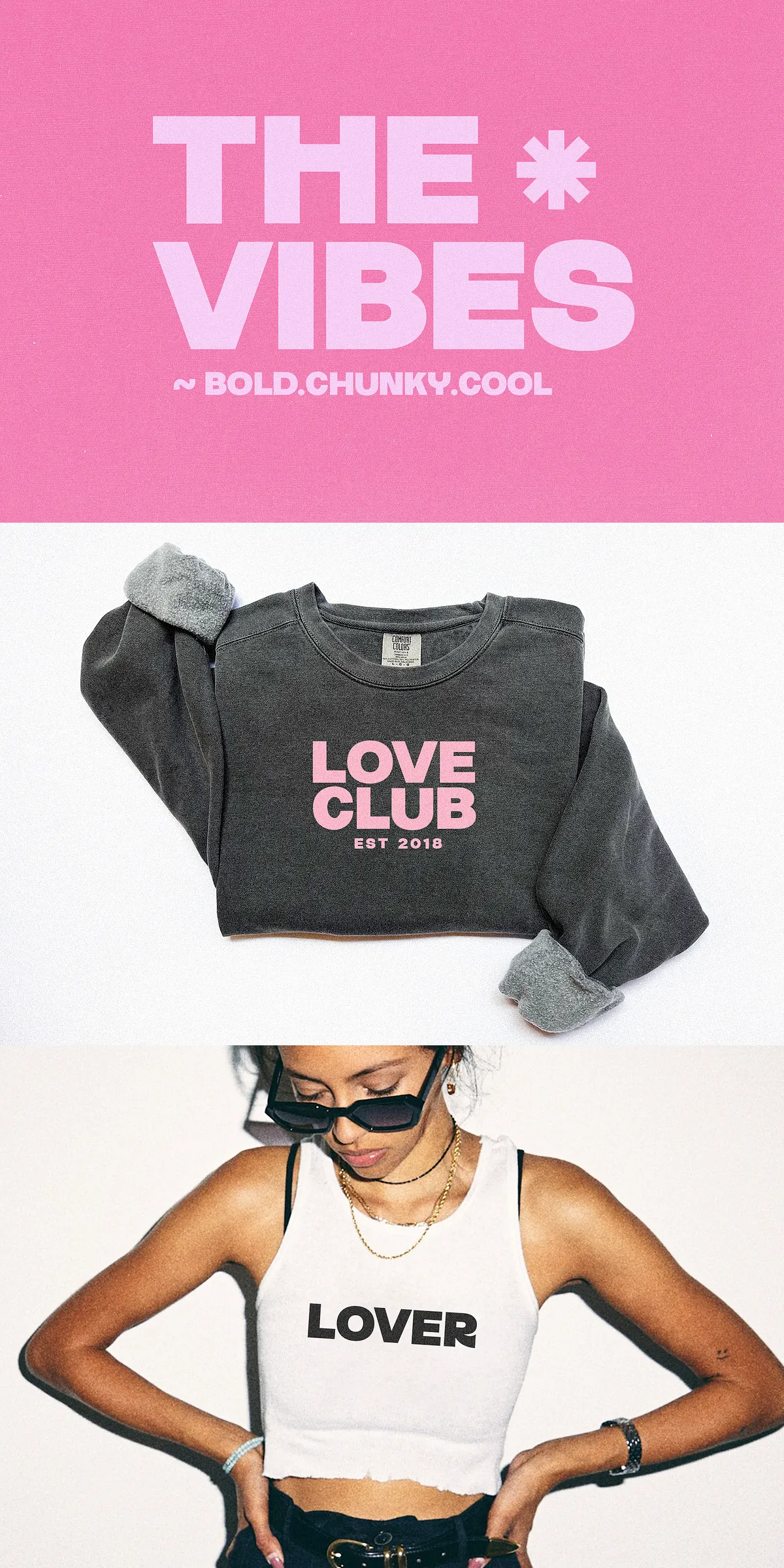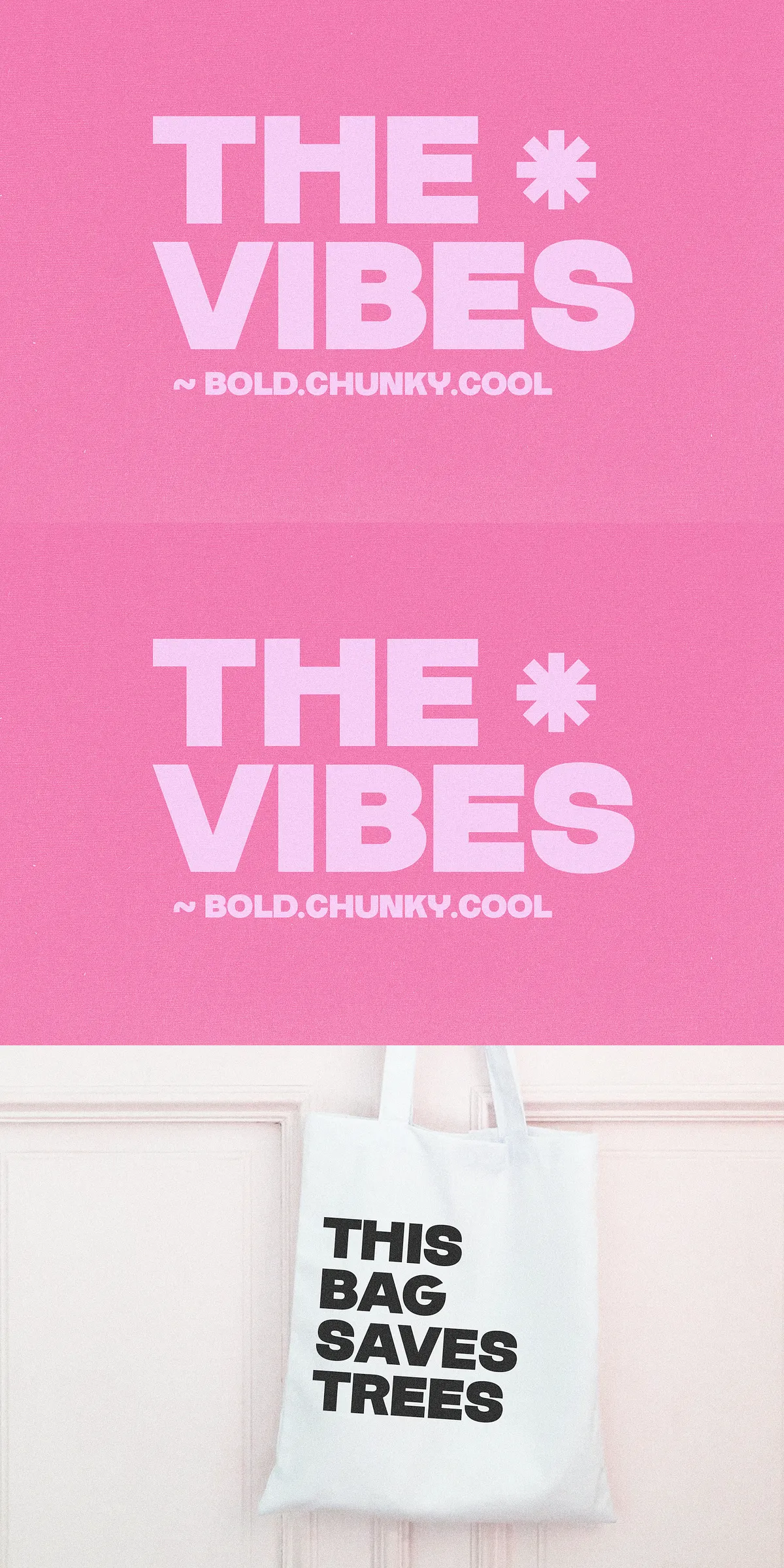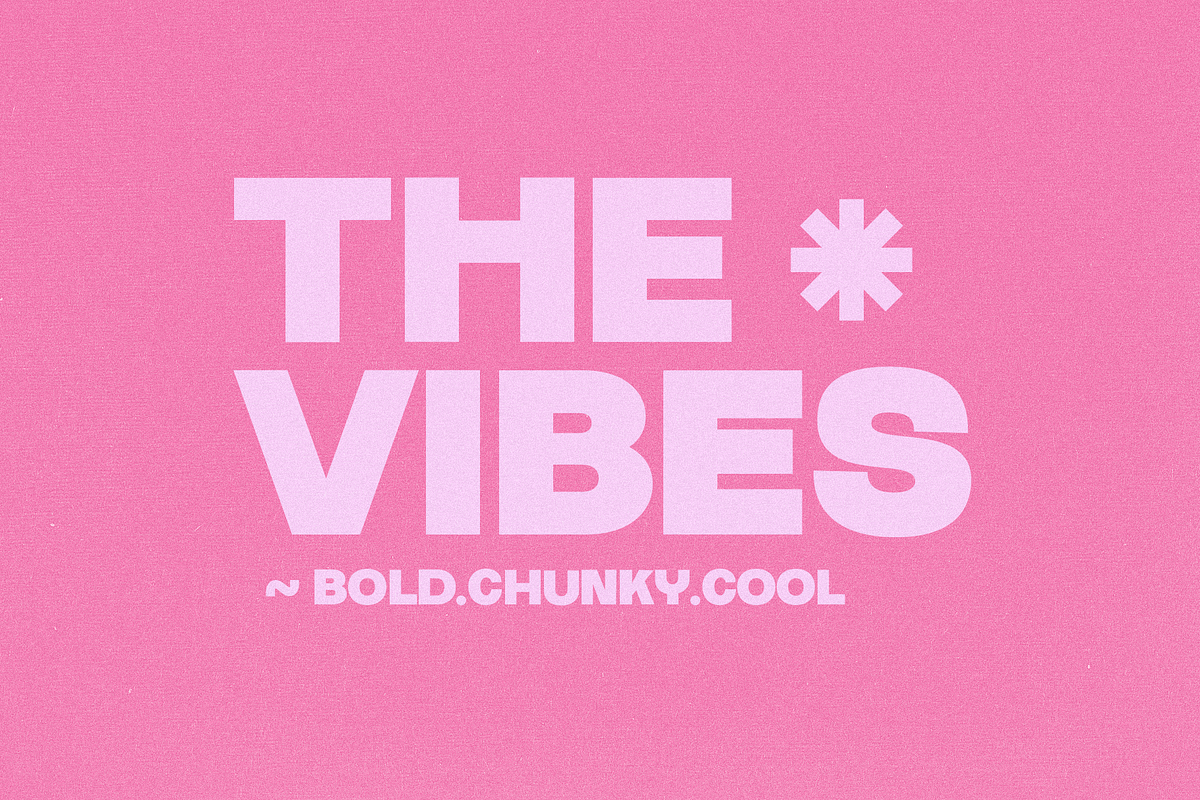
Meet The Vibes — a powerful, modern bold sans serif typeface engineered to command attention and bring energy to every design. This isn’t just a font; it’s a visual punch. With razor-sharp edges, tight kerning, and a confident stroke profile, The Vibes transforms everyday text into striking statements. Whether you’re crafting a logo, designing apparel, or creating digital content, this font delivers instant visual authority.
Engineered for High-Impact Design: Where Bold Meets Modern
The Vibes was built with purpose. It combines the clean minimalism of modern sans serifs with the raw presence of bold typography. Its tight letterforms and geometric precision ensure sharpness at small sizes, while its high contrast and strong axis alignment create a sense of forward momentum. Ideal for branding in competitive markets, The Vibes ensures your message doesn’t just get seen — it gets remembered.
Key Features That Empower Creative Professionals
- Ultra-Bold Weight with High Visibility – Designed to dominate headlines, packaging labels, and social media visuals without losing clarity.
- True Glyph Coverage – Features full Latin character set, ligatures, alternates, and extended punctuation for professional-grade design flexibility.
- Excellent Screen and Print Performance – Renders crisply at any size, from mobile UIs to billboards, ensuring consistency across all delivery channels.
Where The Vibes Shines: Real-World Creative Applications
From startups to streetwear labels, The Vibes is trusted by designers who need typography that speaks louder than words. It’s not just a font — it’s a brand voice in typeform.
Top 6 Use Cases for The Vibes in Professional Projects
- Logo & Brand Identity – Use Bold and Extrabold styles to create strong, memorable wordmarks. The font’s modern edge adds instant credibility to new brands.
- Apparel & Merchandise Design – Print on t-shirts, hoodies, and tote bags with bold, eye-catching results. The high-contrast letters stand out even on dark fabrics.
- Packaging Design – Ideal for product boxes, labels, and retail packaging where you need immediate visual impact and clean readability.
- Social Media Graphics & Ads – Create scroll-stopping Instagram posts, TikTok thumbnails, and Facebook ads with dynamic, high-contrast text that stops the feed.
- Sticker & Craft Projects – Perfect for die-cut stickers, scrapbooking, and digital crafting. The clean lines and bold shape ensure crisp output in vinyl cutters and print tools.
- SVG and Digital Art – Export or embed with SVG files for web graphics, animations, and interactive design — the font scales perfectly without pixelation.
Unlock Your Design Potential with The Vibes
Every great brand begins with a strong statement. With The Vibes, your typography becomes that statement. It’s designed to energize your work, elevate your concept, and give your audience a reason to pause and look closer.
Pro Tips for Maximum Impact with The Vibes
- Use the Extrabold weight for headlines and cover text to maximize visibility and influence.
- Set in all caps for logo designs — The Vibes shines in uppercase, offering excellent spacing and visual symmetry.
- Pair with a clean sans serif (like Inter or Lato) for body text in design layouts — this contrast enhances readability while keeping the focus on the bold message.
- Apply subtle shadow or outline effects in digital designs to enhance depth and modernity — The Vibes reacts beautifully to design enhancements.